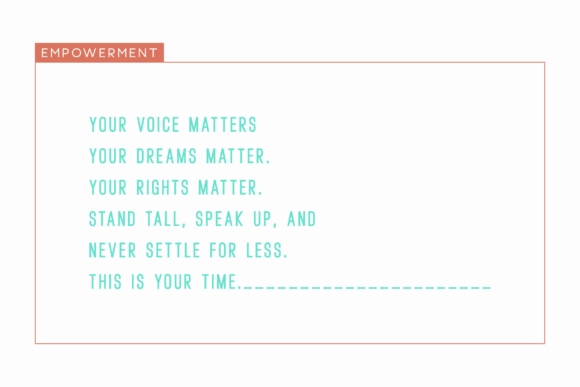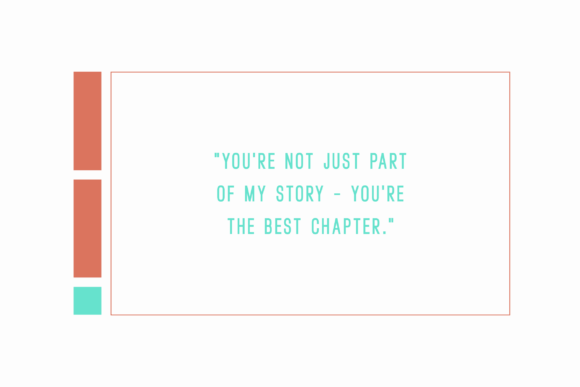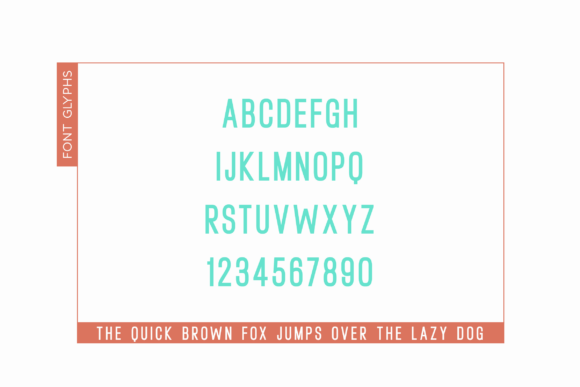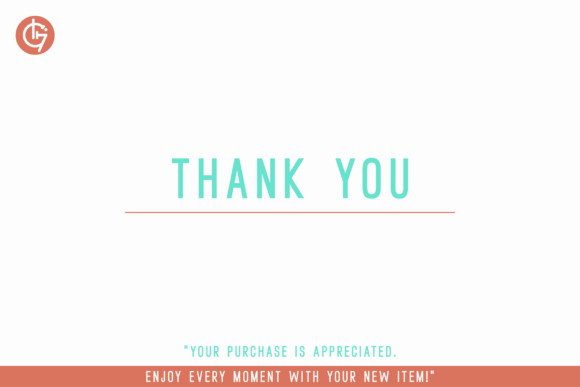
Introduction to Atheron Font
Atheron is a refined sans-serif typeface that combines modern minimalism with impeccable balance.
Its clean, evenly spaced letterforms and precise kerning create a harmonious flow, ensuring optimal readability in every size and medium The slightly elongated proportions give the typeface a contemporary edge, making it both striking in headlines and elegant in body text.
Key Features of Atheron Font